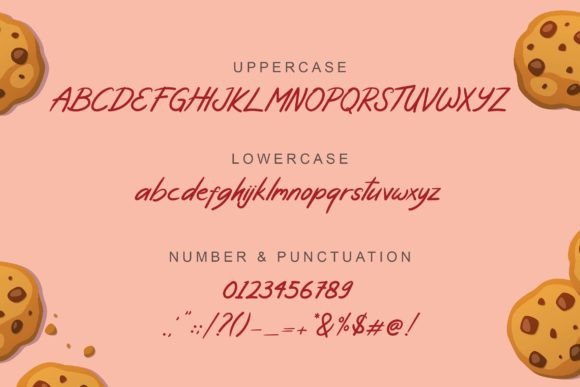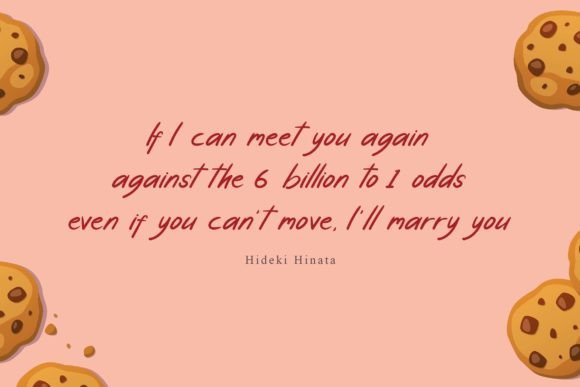
About Bakpia Font
Bakpia is a modern and awesome handwriting font with a natural style. This font is suitable for signatures, logos, headlines, and more.